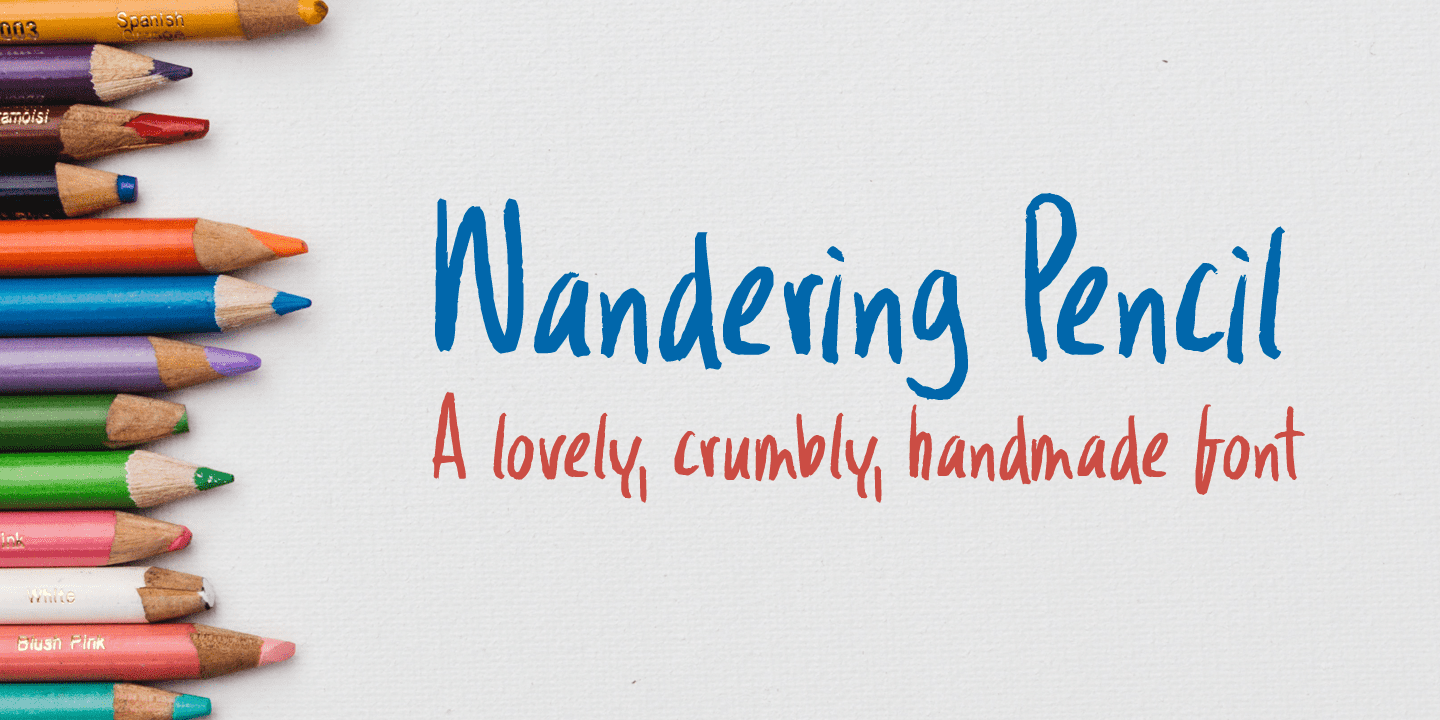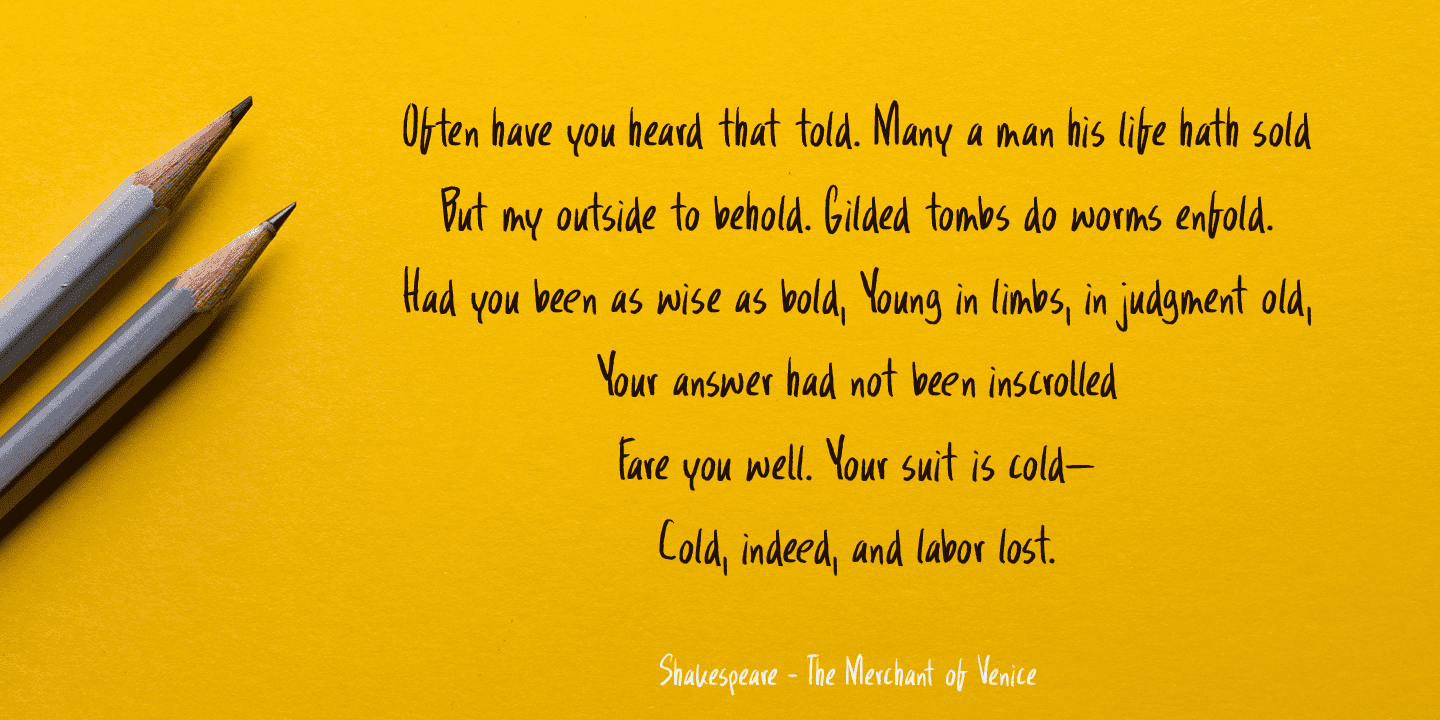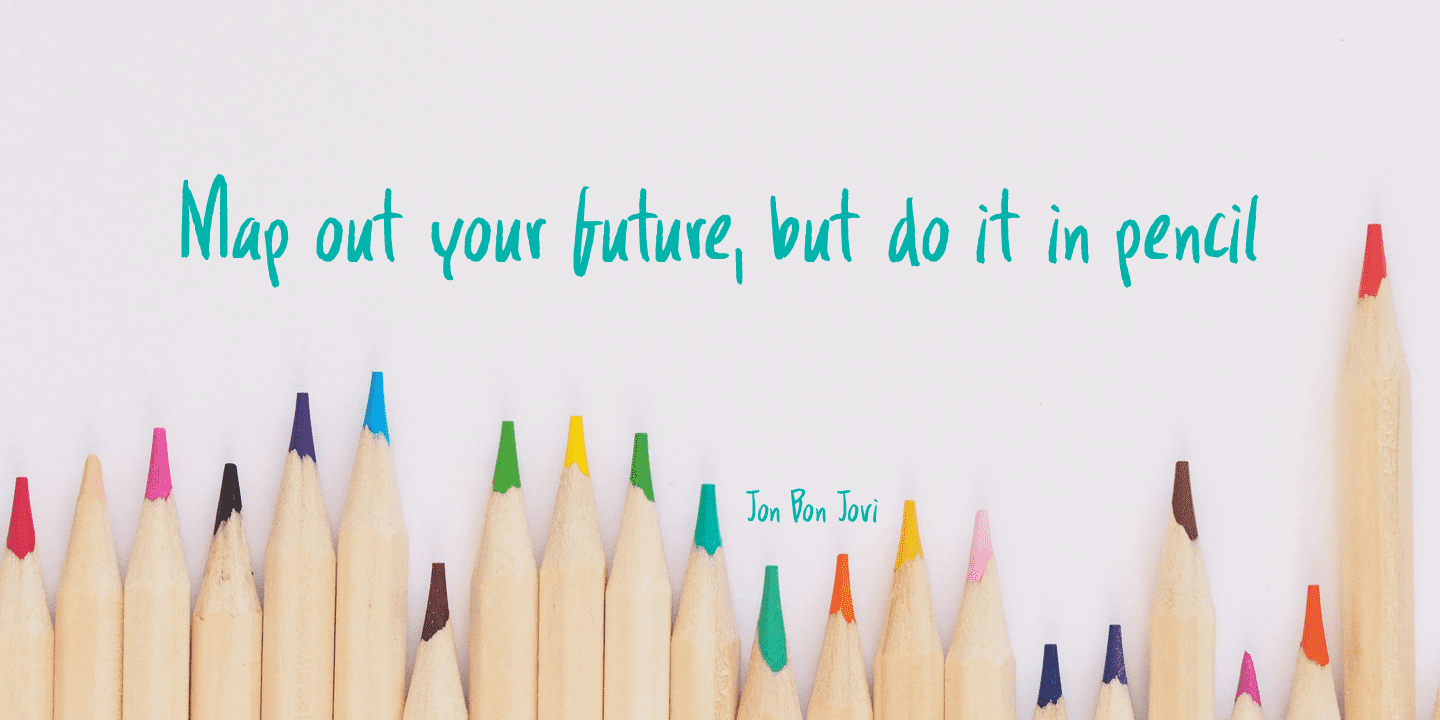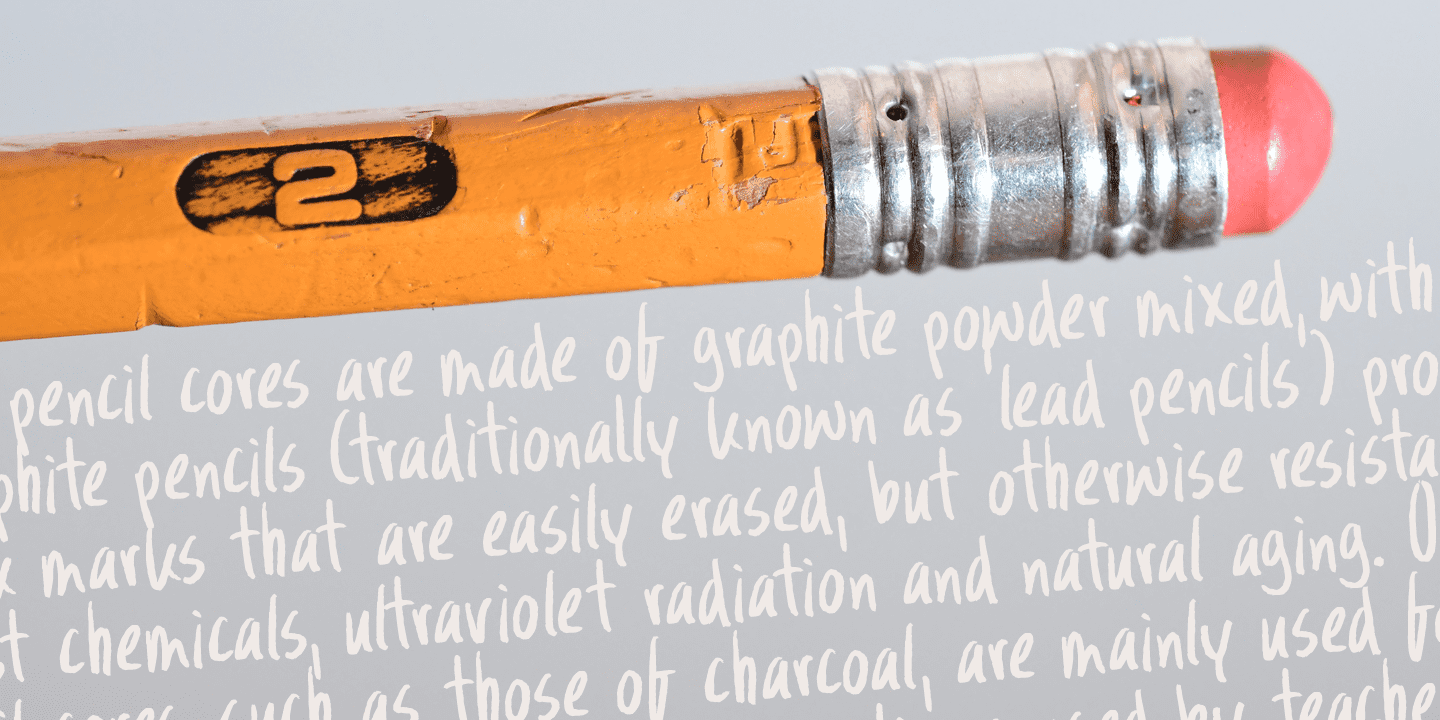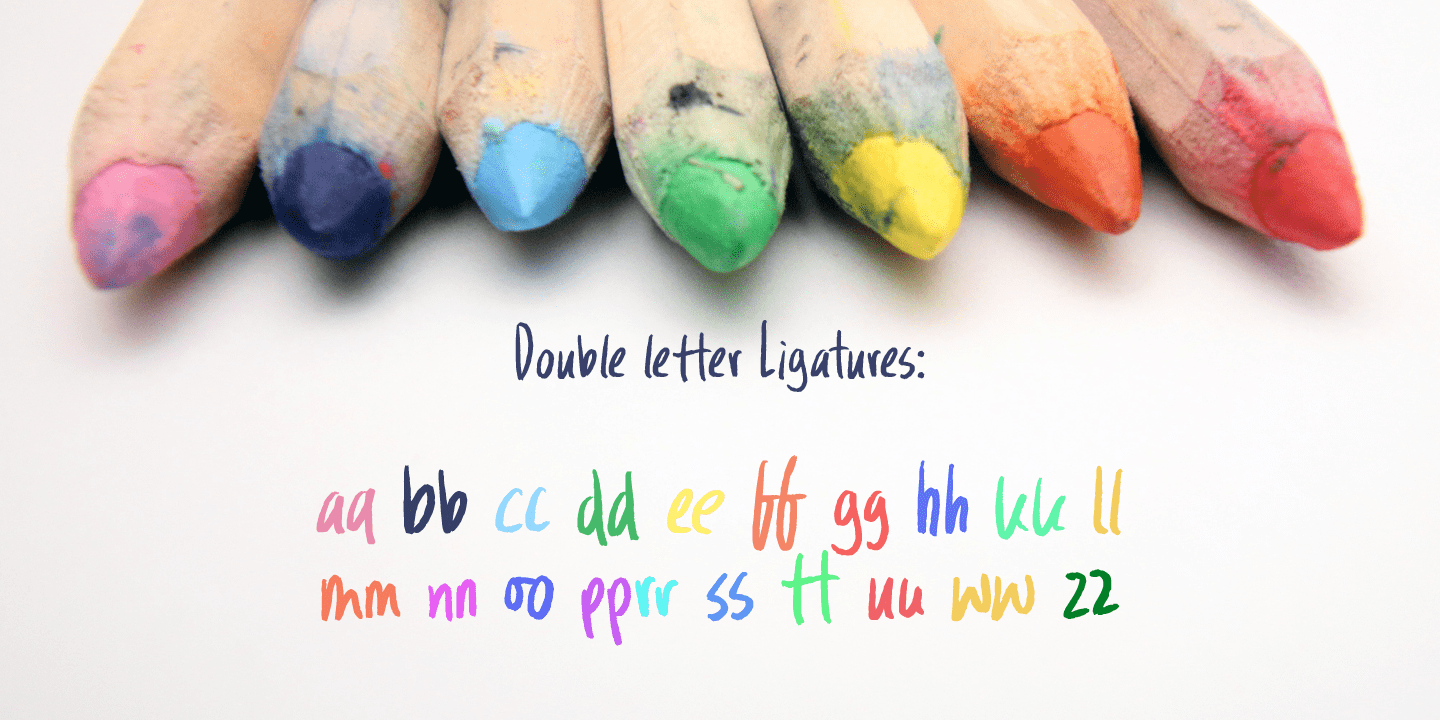
Wandering Pencil Family (2 fonts)
Wandering Pencil is a nice, handmade font. It is a bit shaky, a bit rough, but it does have class and will look nice on your designs!
Comes with diacritics and double letter ligatures for the lower case.